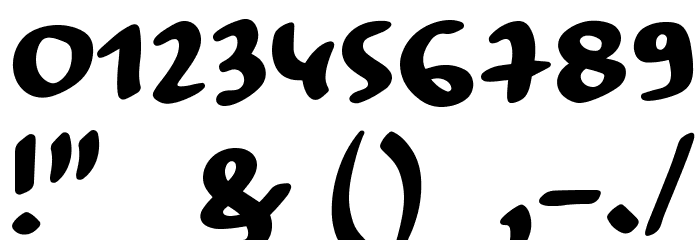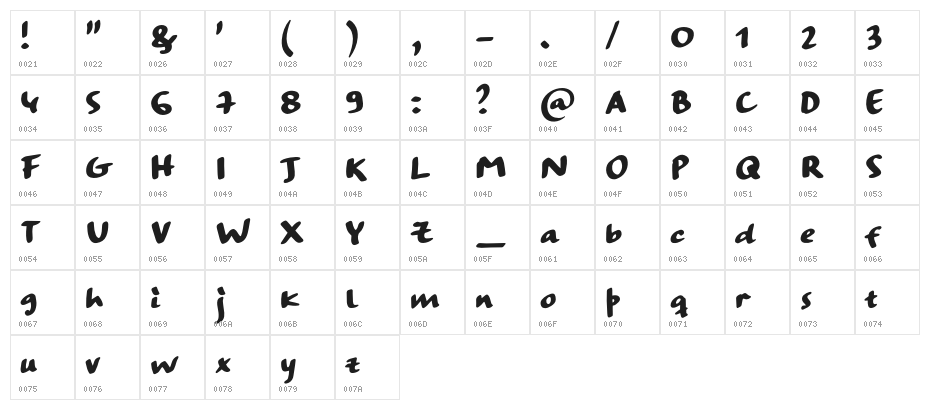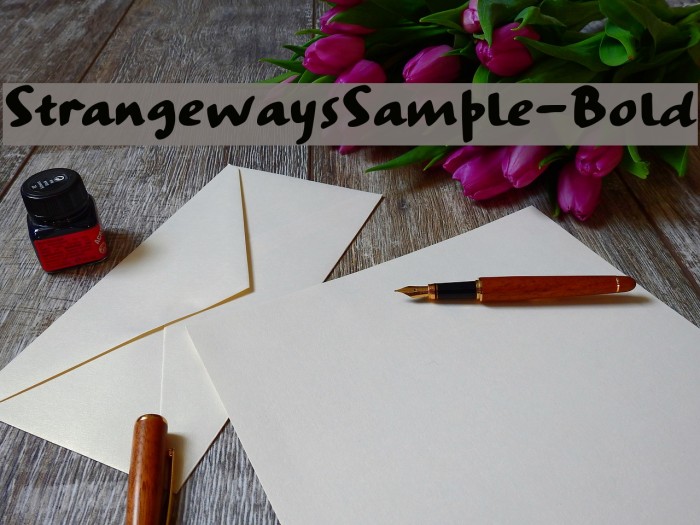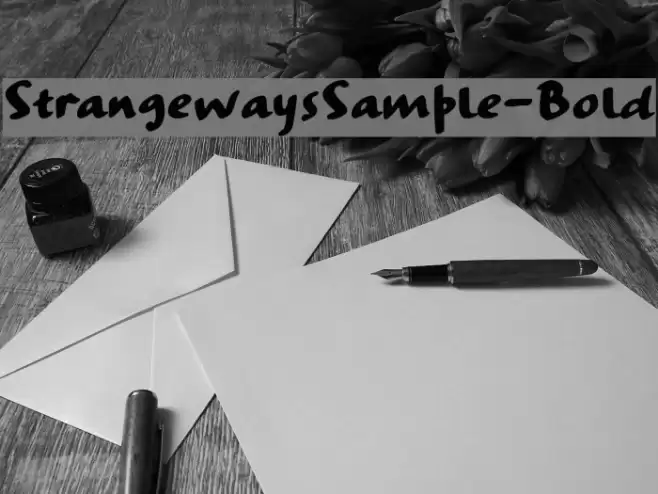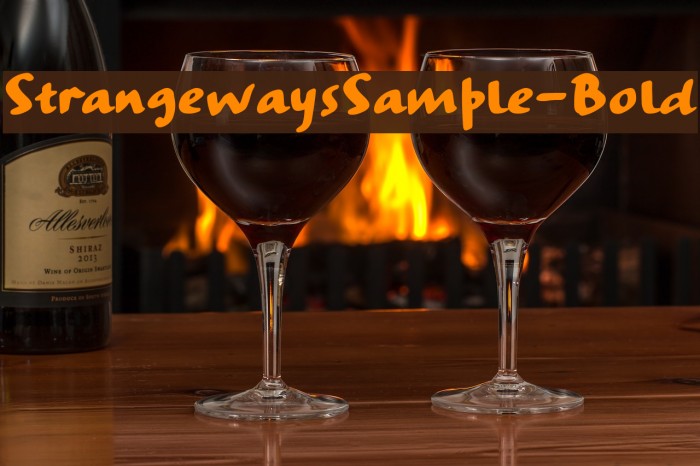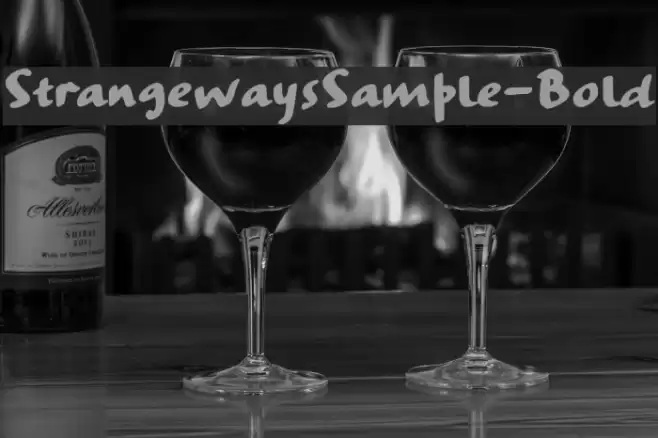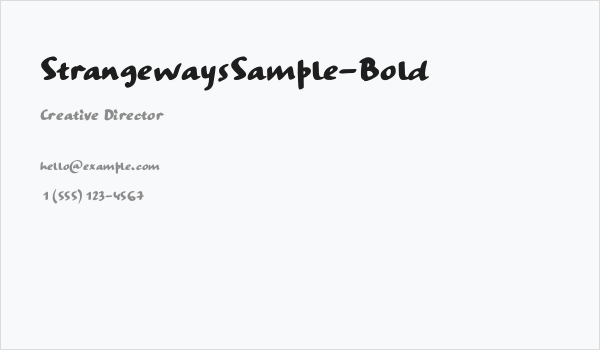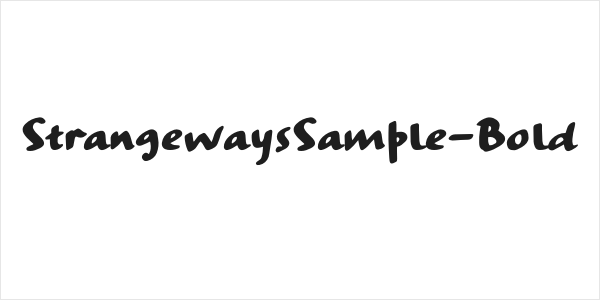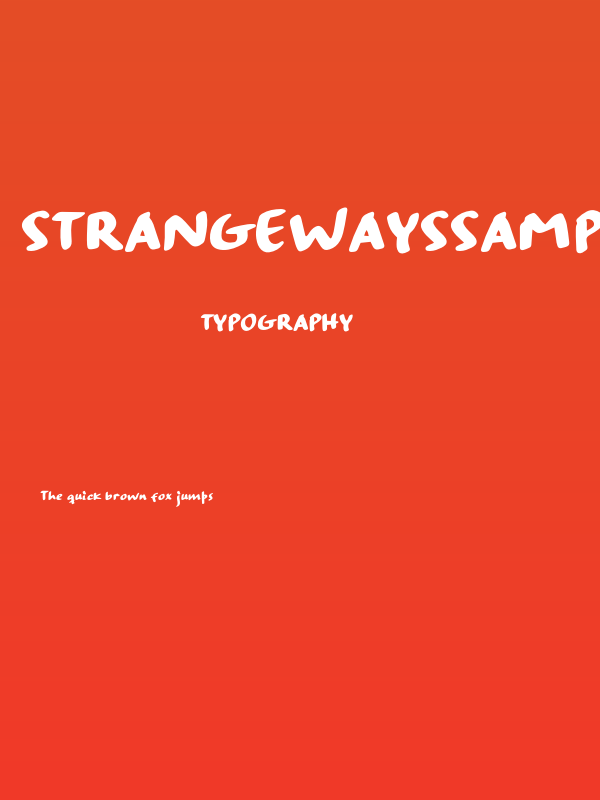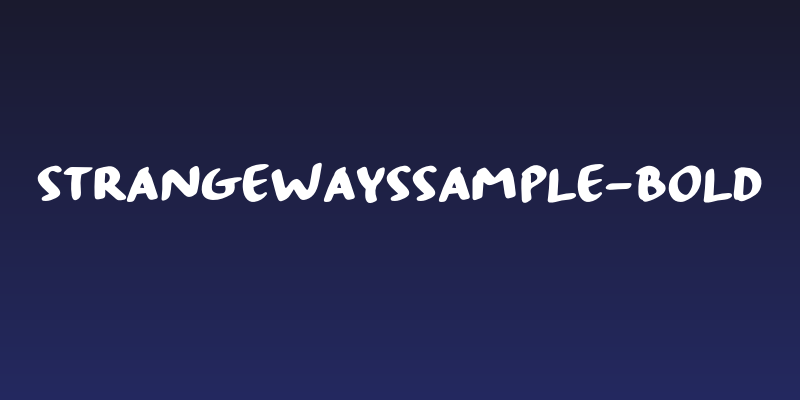
StrangewaysSample-Bold Font
StrangewaysSample-Bold Description
This font features a bold and playful handwritten style, characterized by its thick strokes and rounded edges. The letters are slightly irregular, giving it a casual and friendly appearance. The uppercase and lowercase letters maintain a consistent weight, while the numerals and special characters blend seamlessly with the overall design. The font's informal and approachable nature makes it suitable for projects that require a touch of personality and warmth.
| Proposed Projects | Ideal for greeting cards, children's books, playful branding, and casual invitations. |